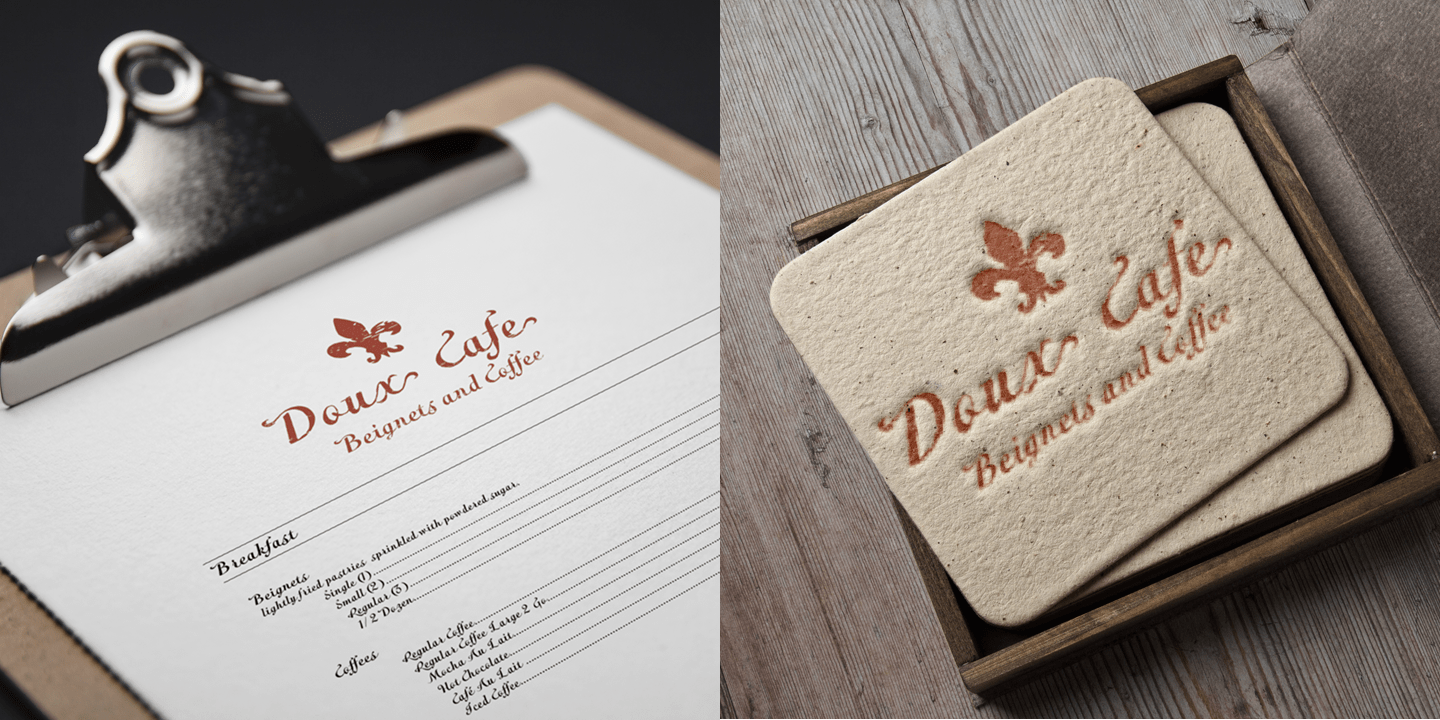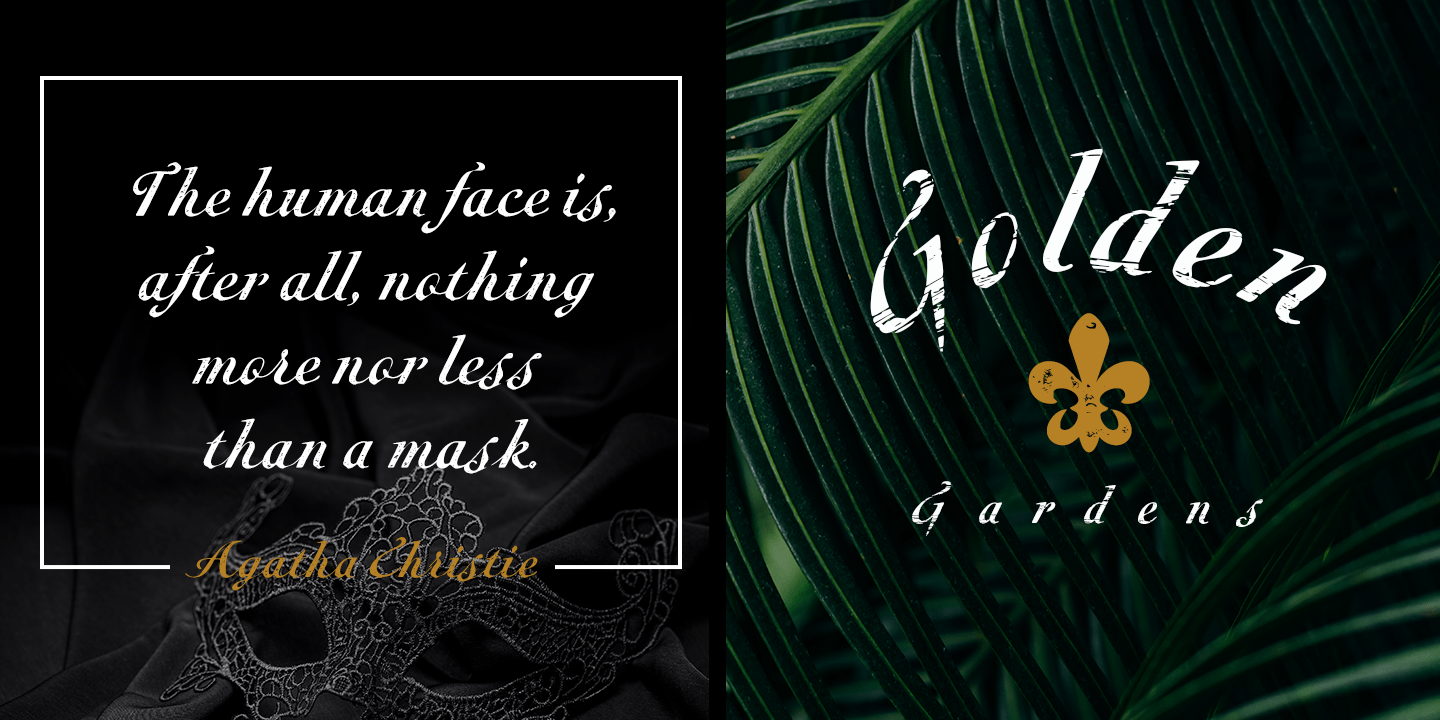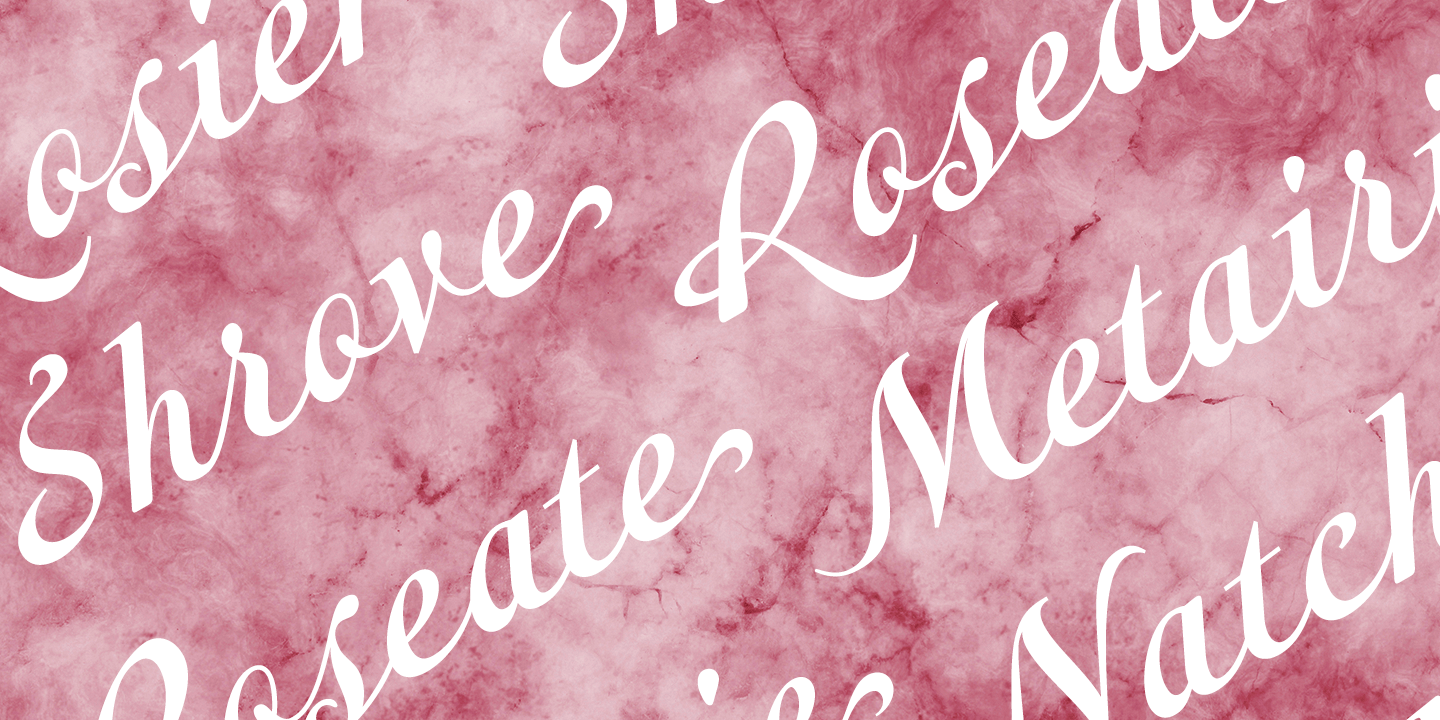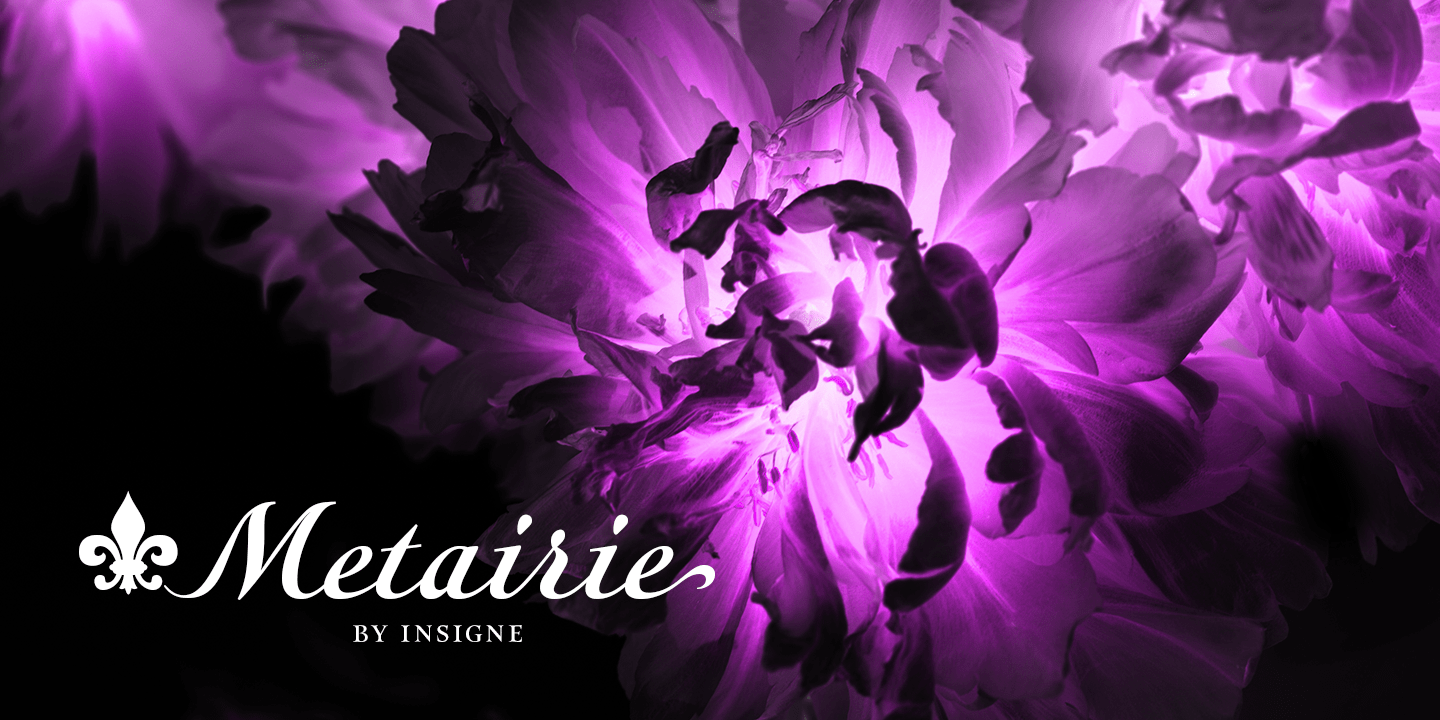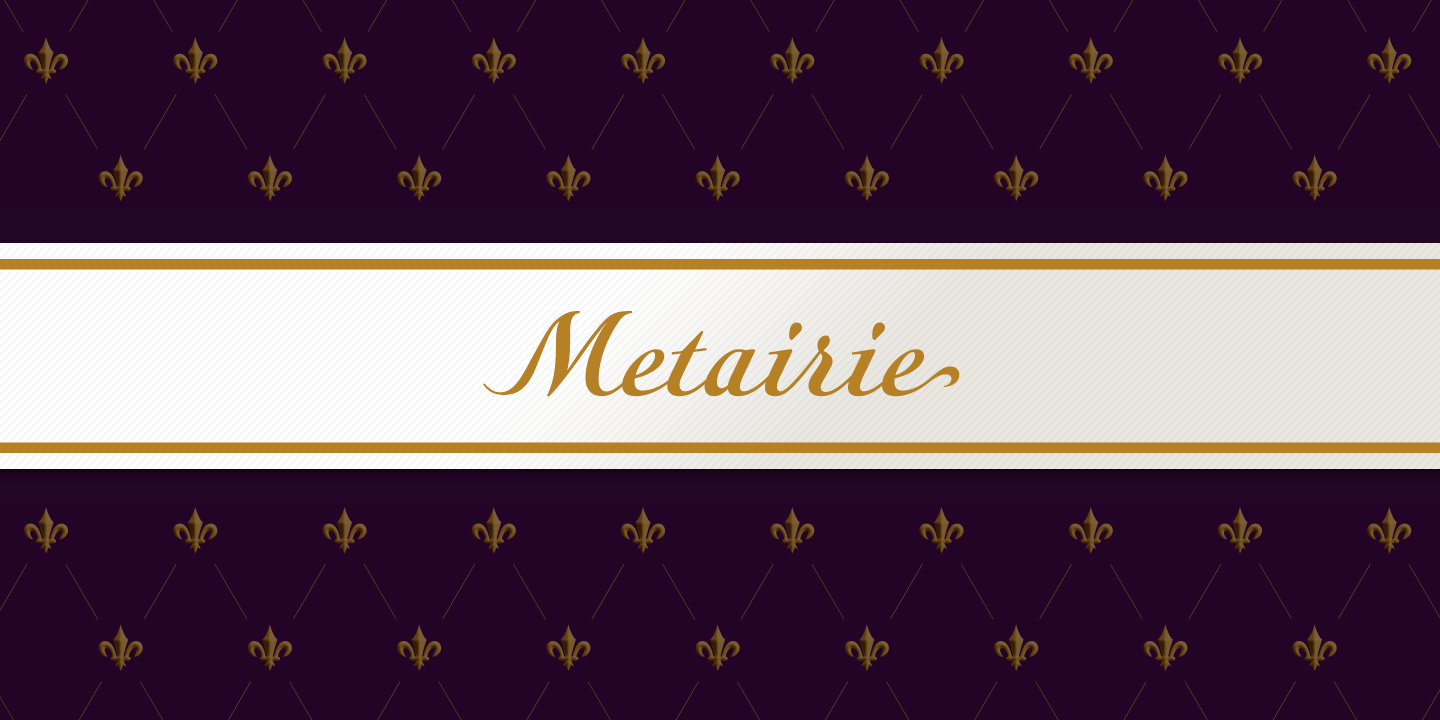
Get in the swing with Metairie. This high-contrast script from Jeremy Dooley sets the rhythm for your next headline or short phrase with its fresh, expressive forms. Metairie\’s (sometimes exaggerated) scrawled letterforms play on the colorful world of…